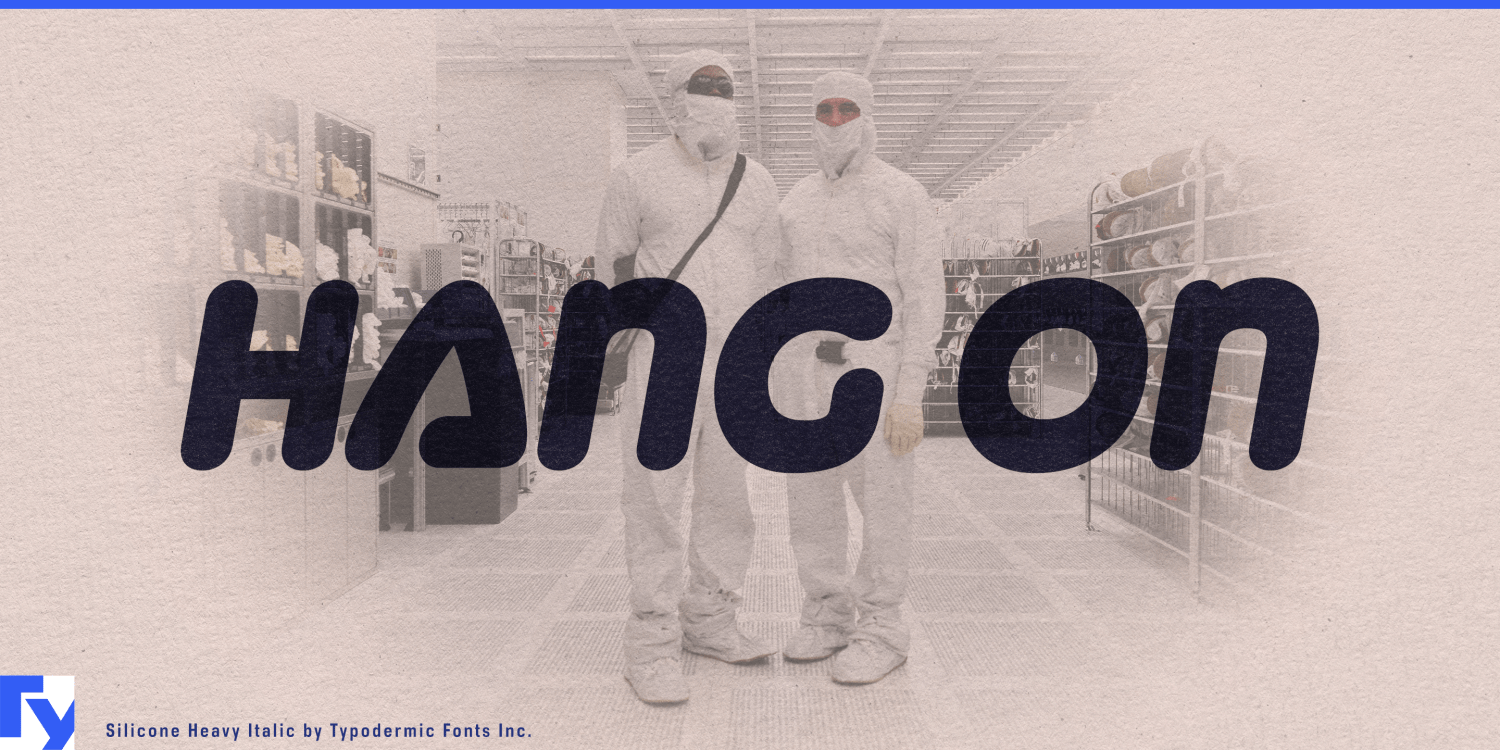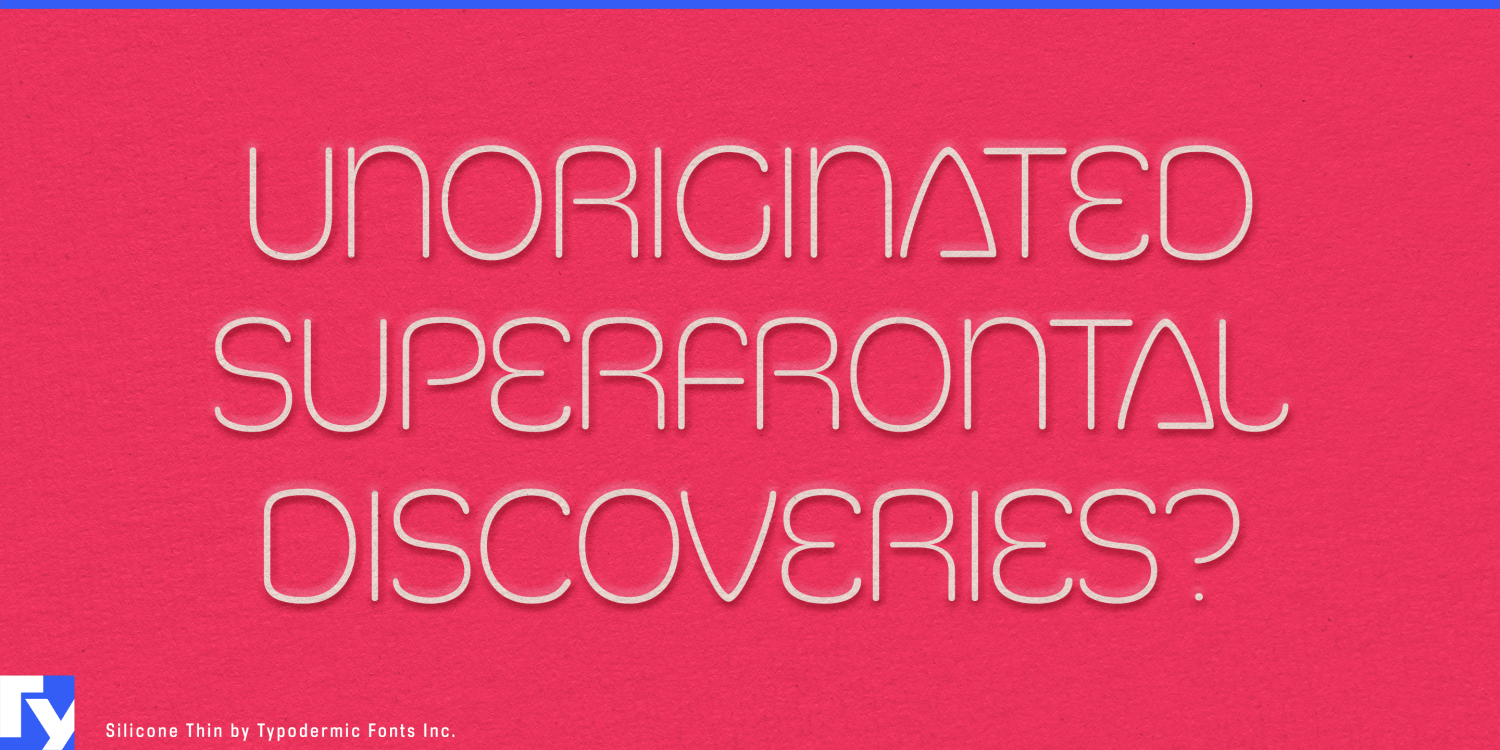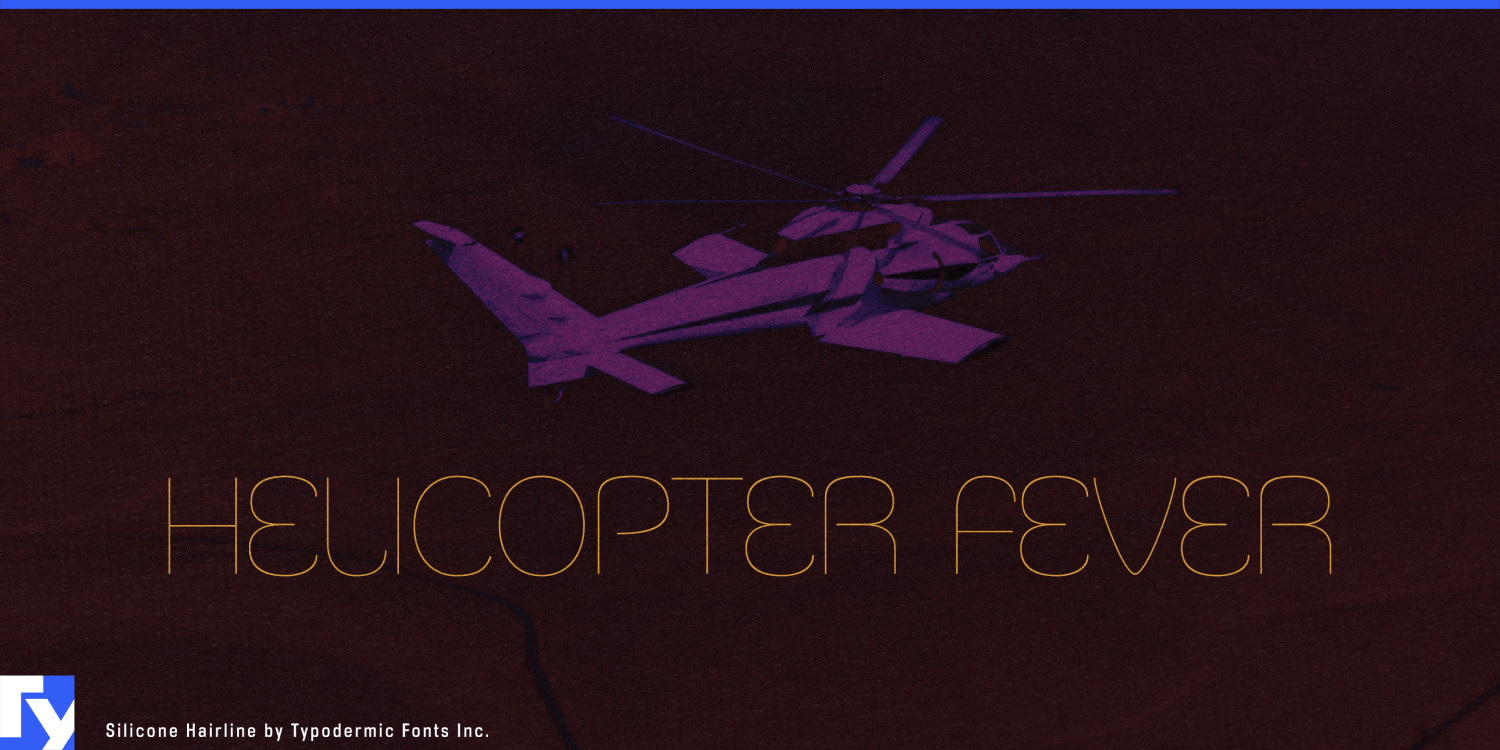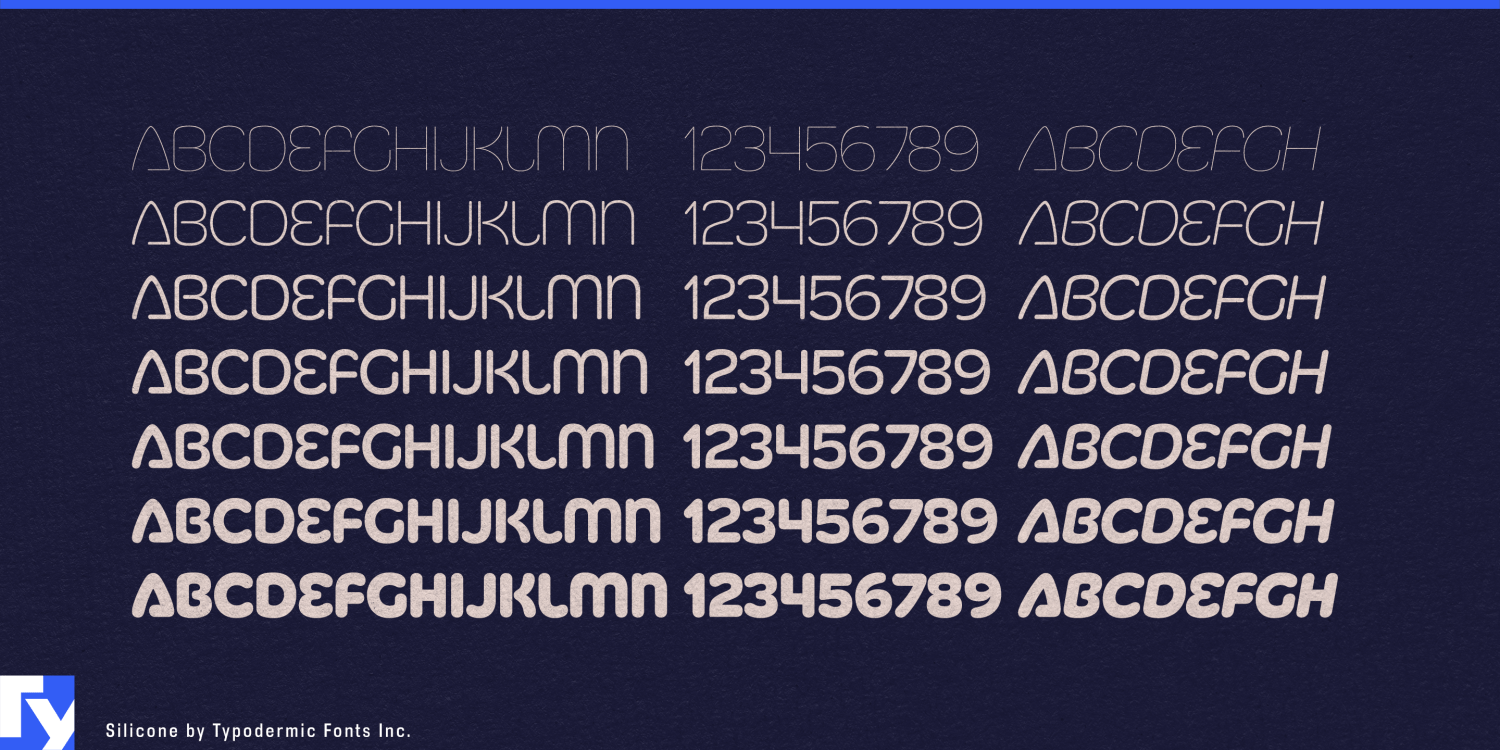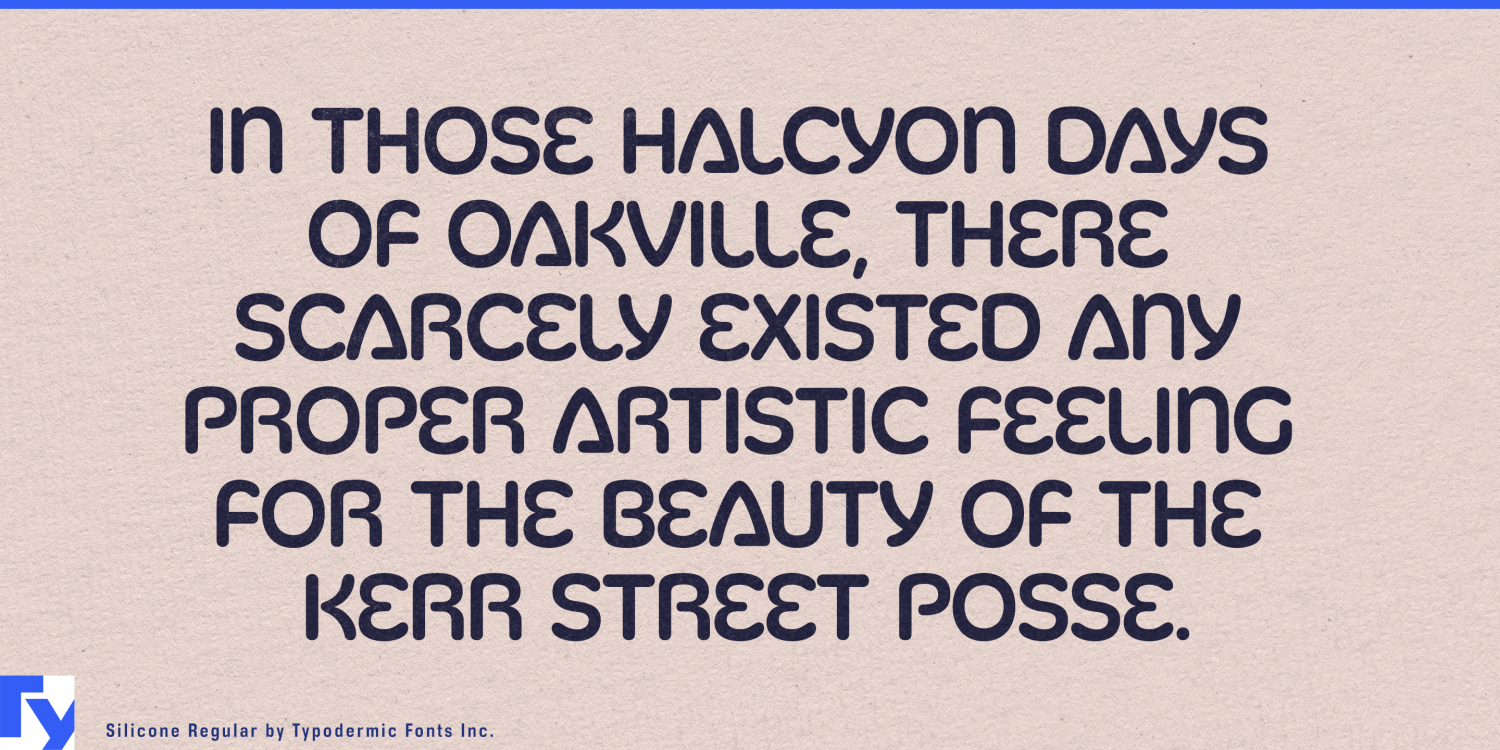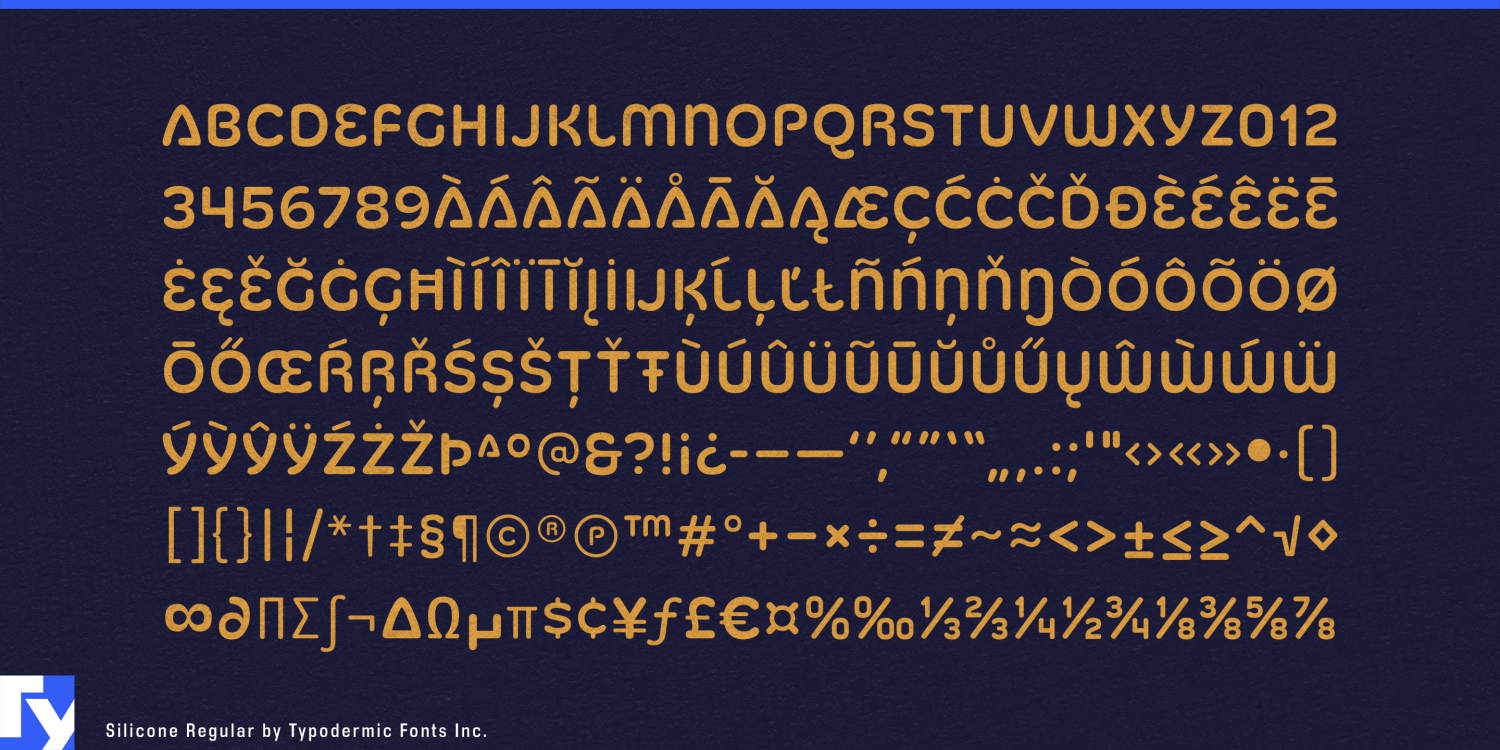
Silicone
Buy NowStep into tomorrow with Silicone, a typeface that doesn’t just embrace the future—it defines it. This is a bold declaration of modernity, a synthetic symphony of form and function that pushes the boundaries of typographic expression.
Silicone’s all-caps letterforms are a masterclass in avant-garde design. Each character is a sculpted masterpiece, its smooth, sleek surface reminiscent of cutting-edge materials. The soft strokes and carefully crafted contours create a visual rhythm that’s both calming and captivating, inviting the eye to linger on every letter. But Silicone’s true power lies in its versatility. With seven meticulously calibrated weights, this typeface is a chameleon, adapting effortlessly to any design challenge. From the whisper-thin weight that adds a touch of elegance to body text, to the bold, chunky weight that commands attention in headlines, Silicone offers a full spectrum of expressive possibilities. And let’s not overlook the italics—a refined twist on the futuristic theme that adds a dash of sophistication to any layout.
Silicone doesn’t just communicate—it resonates. In logo design, it speaks of innovation and forward-thinking. In editorial layouts, it adds a sleek, contemporary edge. In user interfaces, it enhances readability while reinforcing a high-tech aesthetic. This is more than a typeface; it’s a visual voice that articulates your message with precision and style. What truly sets Silicone apart is its linguistic flexibility. Supporting a vast array of Latin-based European writing systems, from Afaan Oromo to Zuni, this typeface ensures your futuristic vision translates across cultures. It’s not just crossing language barriers—it’s breaking them down with the smooth efficiency of its namesake material.
Let Silicone mold your message into a form that’s unmistakably modern. In a world of constant technological advancement, your typography should be just as progressive as your ideas. With Silicone, you’re not just keeping pace with the future—you’re shaping it, one smooth letter at a time.